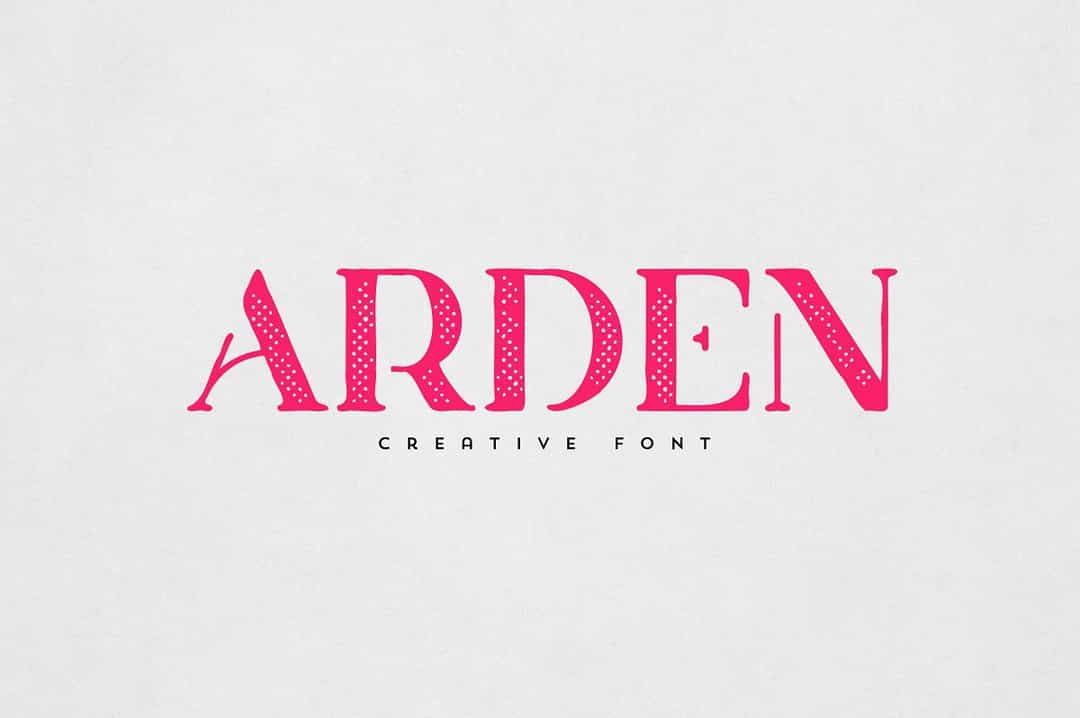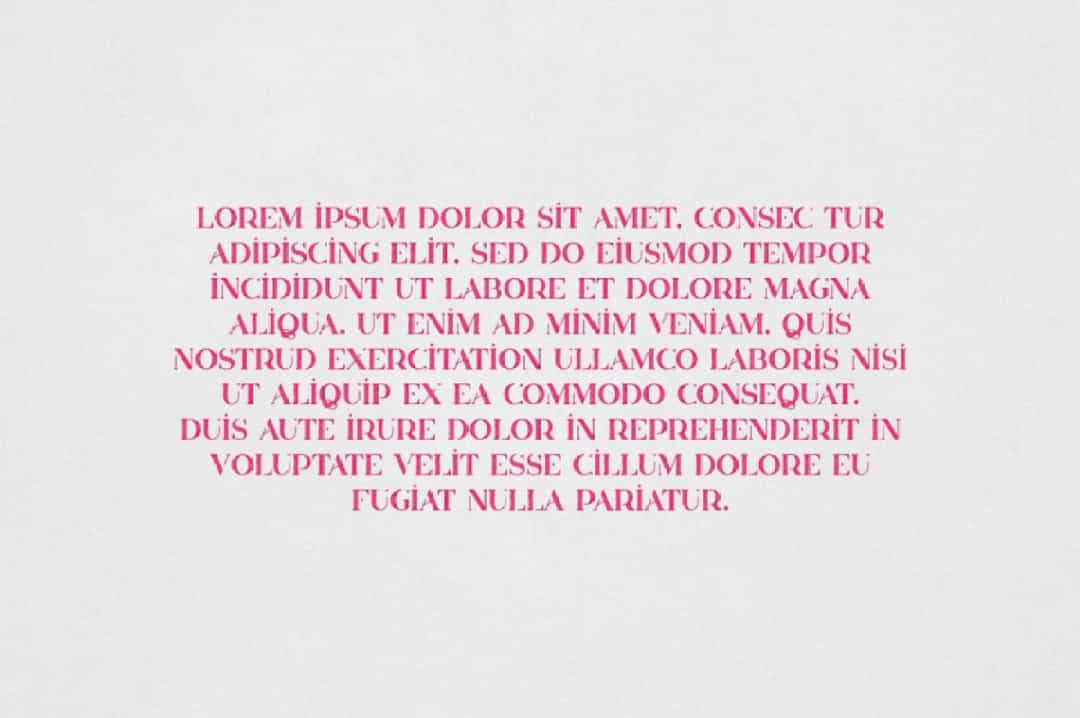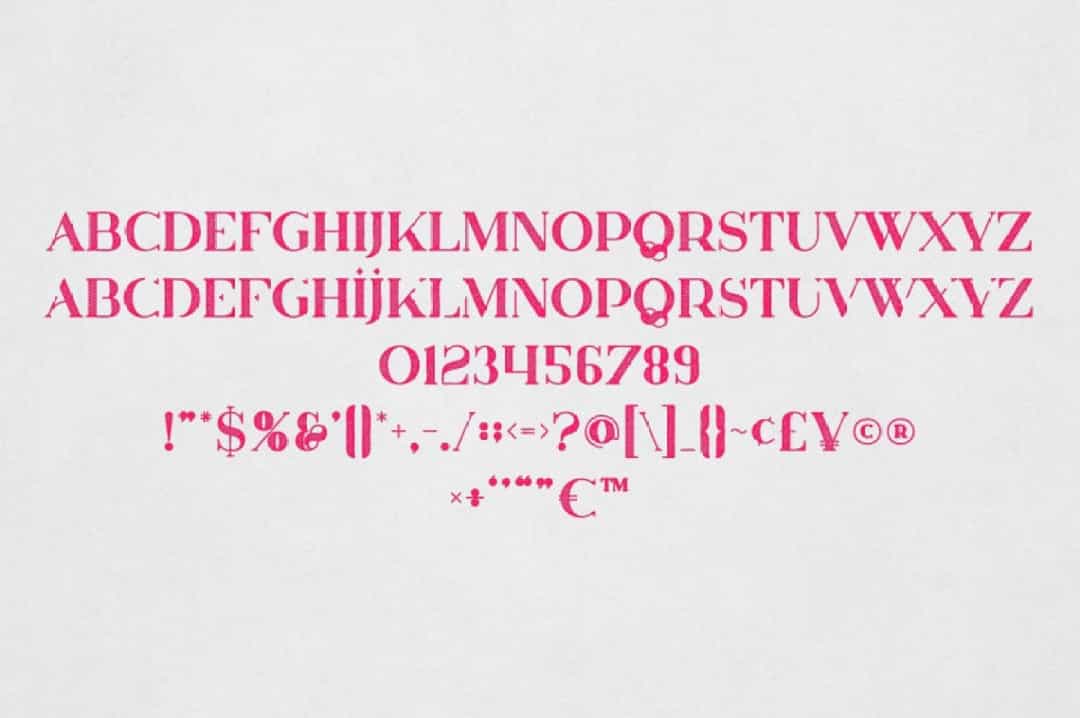
Arden offers an elegant and flexible display serif font that brings life and originality to any typographic composition! Perfect for headlines, logos, branding designs or simply plain text! Arden font makes an impressive impression when used for headlines, logos or branding! Especially suitable for home-ware projects, branding designs for products magazines or simply adding elegant text overlays over images for projects or advertisements.